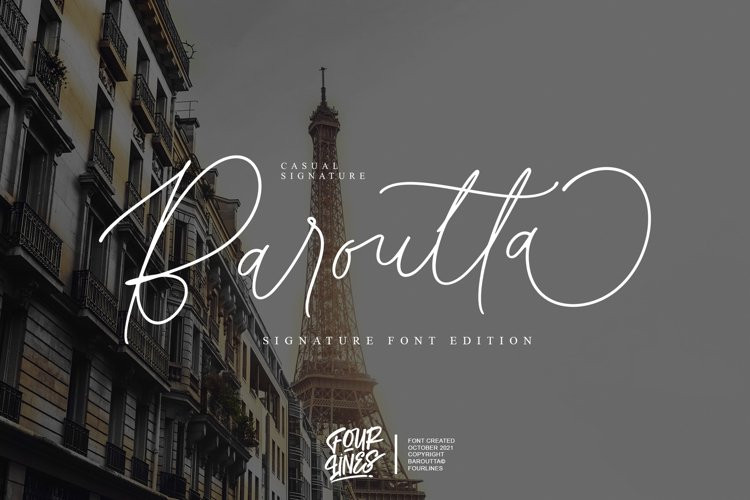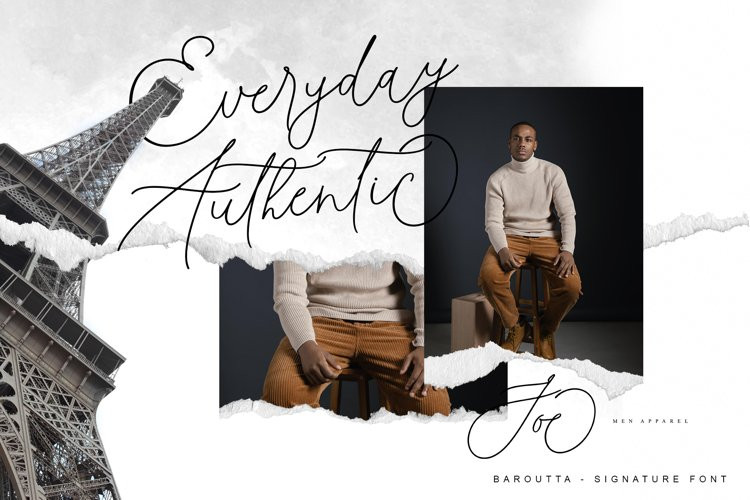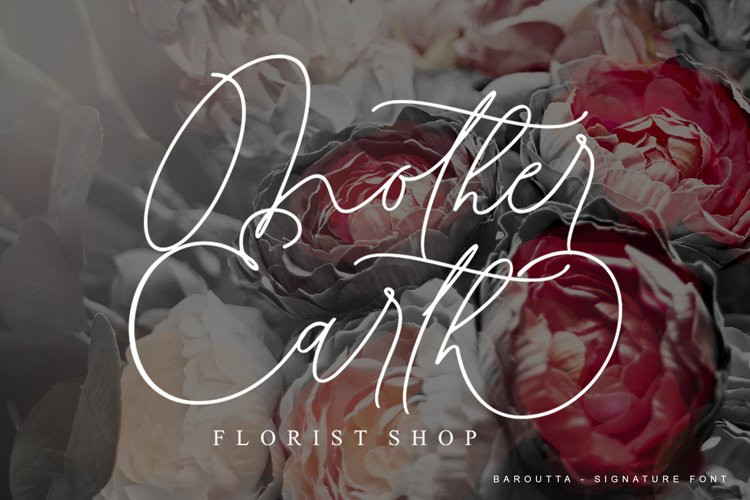
Baroutta Font
Baroutta is a thin lettered and graceful script font. It will add a luxury spark to any design project that you wish to create! This font is PUA encoded which means you can access all of the amazing glyphs and ligatures with ease!